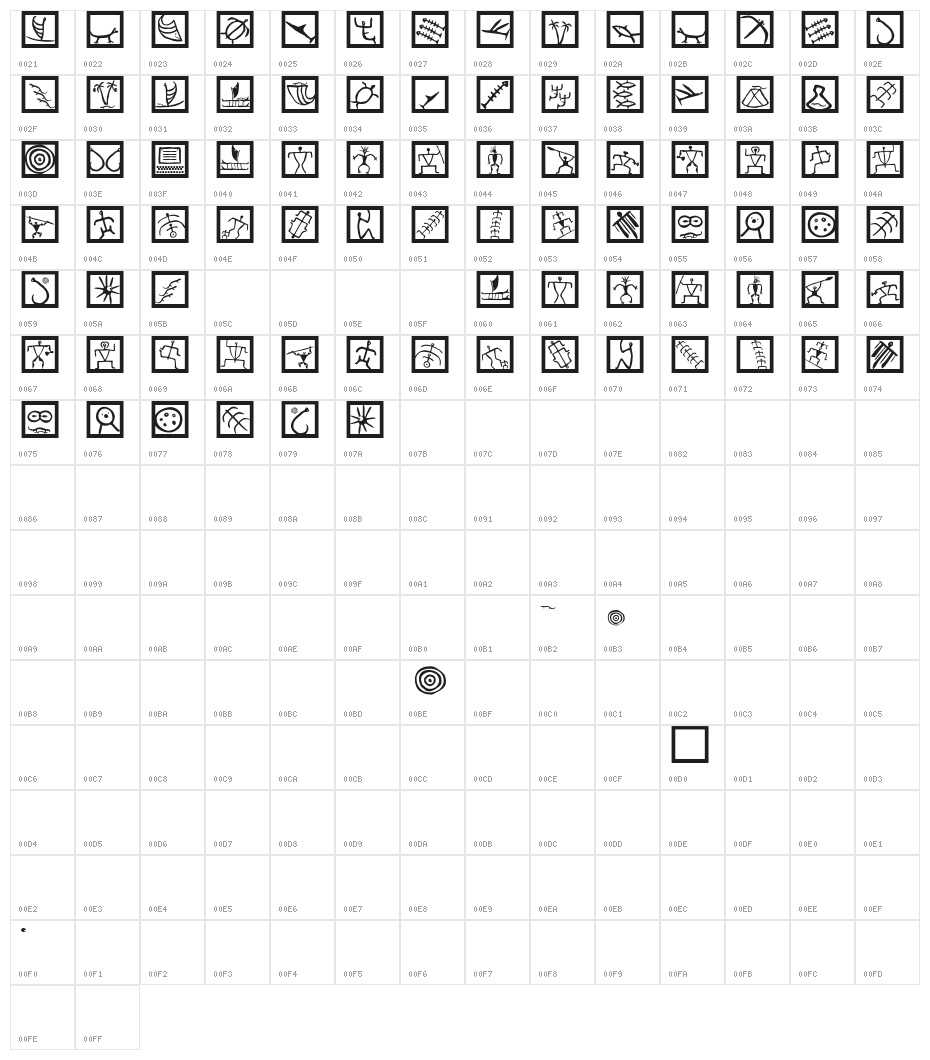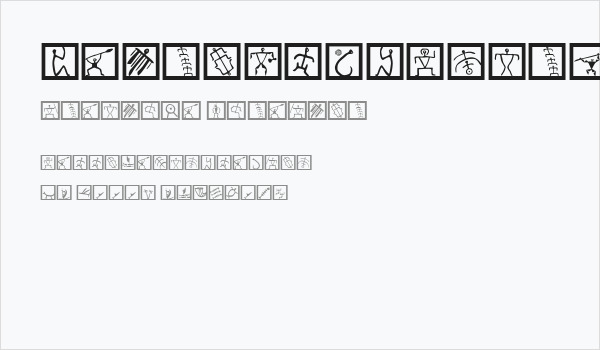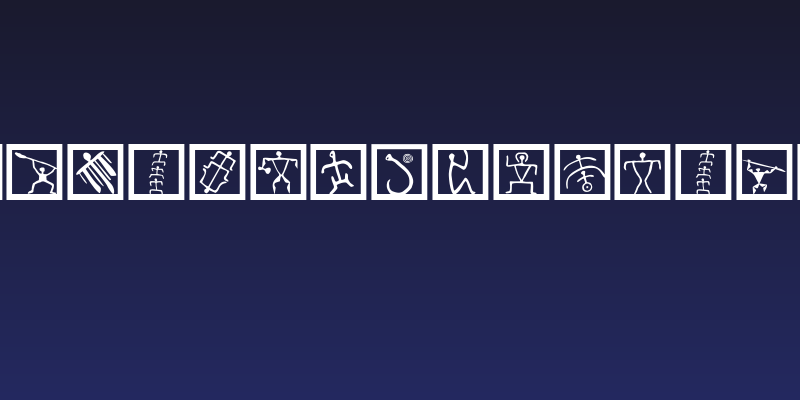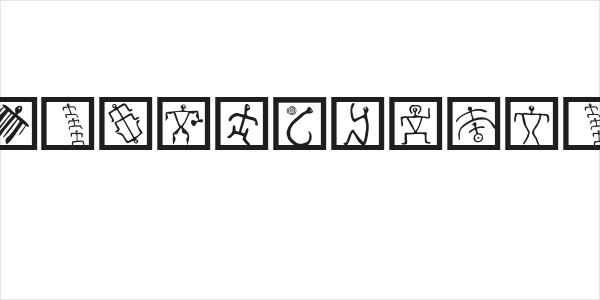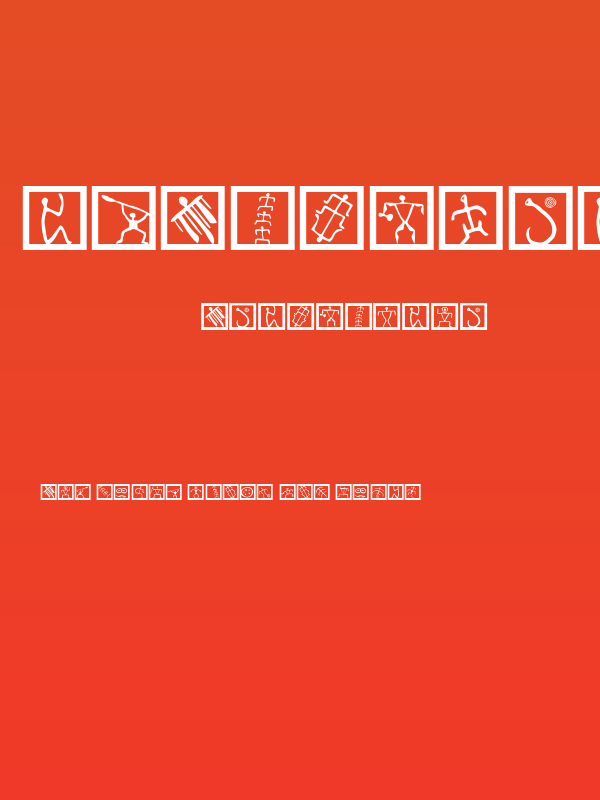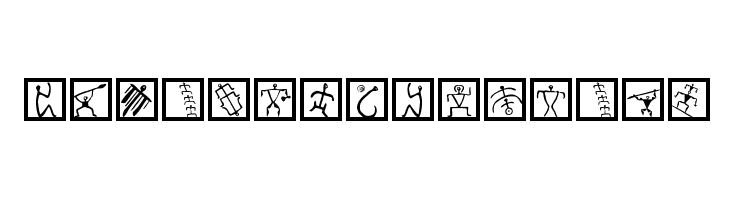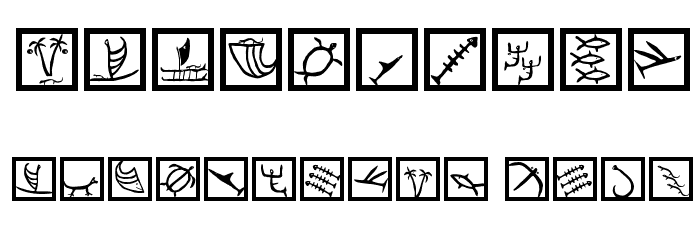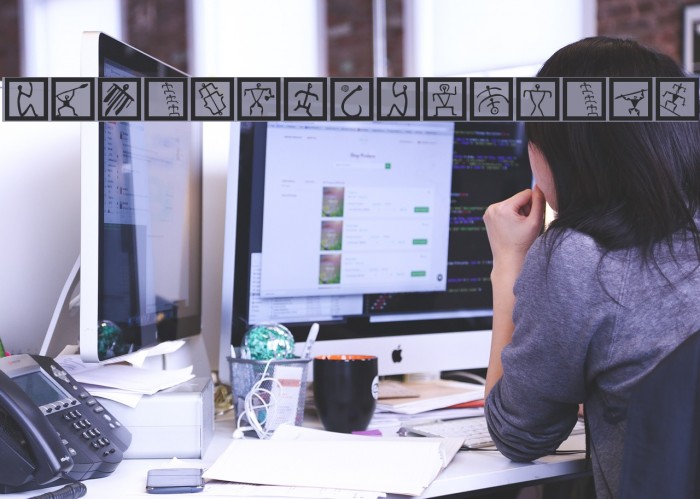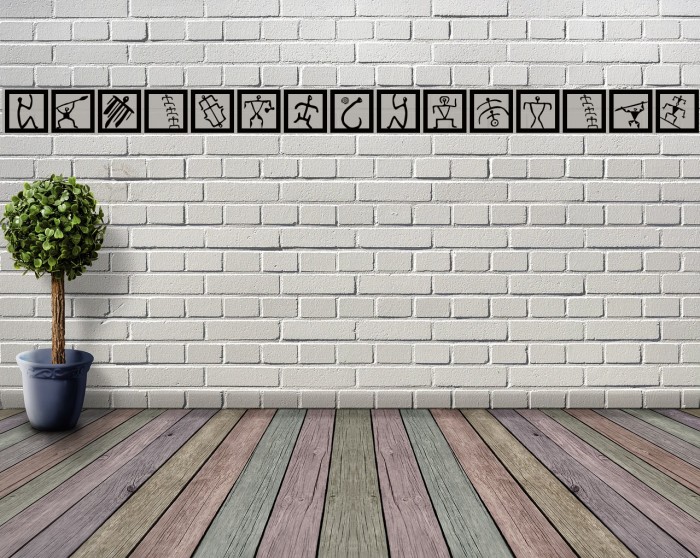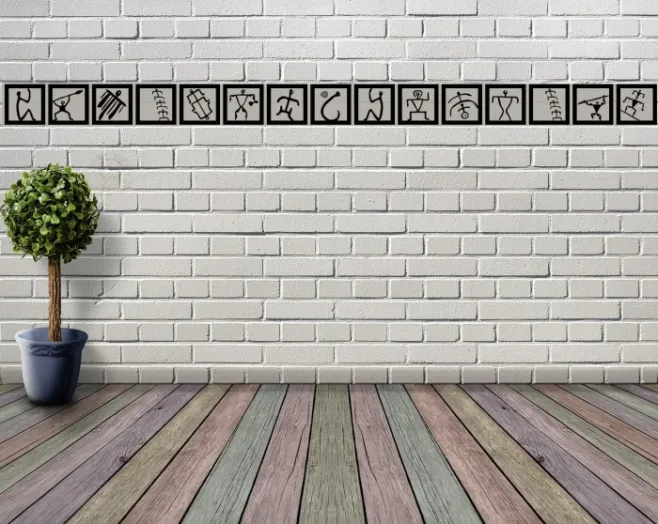
PetroglyphMarks Font
PetroglyphMarks Description
This font is inspired by ancient petroglyphs, featuring a series of symbols that resemble prehistoric rock carvings. Each character is enclosed in a square, giving it a distinct and uniform appearance. The symbols are abstract and stylized, often depicting human figures, animals, and geometric shapes. The lines are bold and consistent, with a hand-drawn quality that adds to the primitive aesthetic. This font captures the essence of ancient storytelling and communication, making it ideal for projects that require a historical or cultural touch.
| Overall Style | Primitive, Historical, Artistic |
| Use Case | Logos, Posters, Educational Materials |
| Proposed Projects | Ideal for educational materials, cultural exhibitions, historical documentaries, and artistic projects that aim to evoke a sense of ancient history and storytelling. |